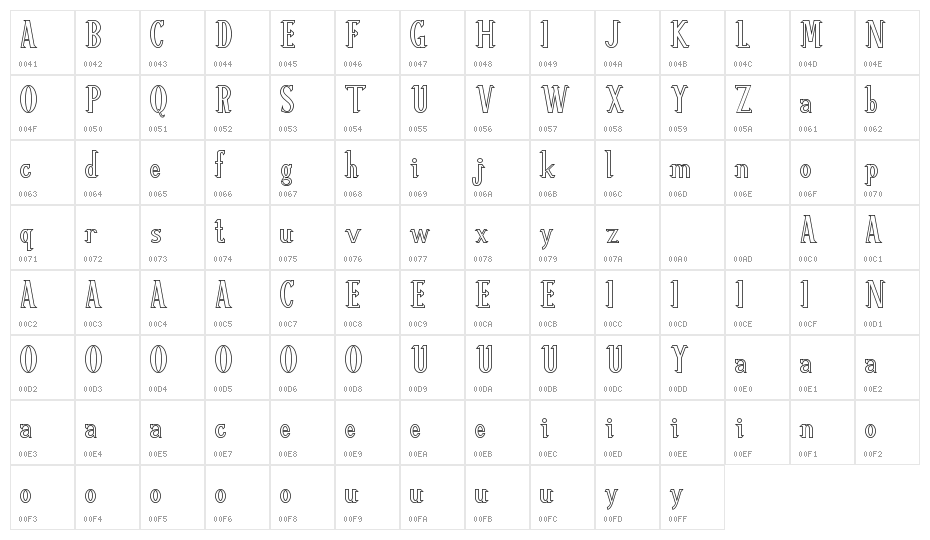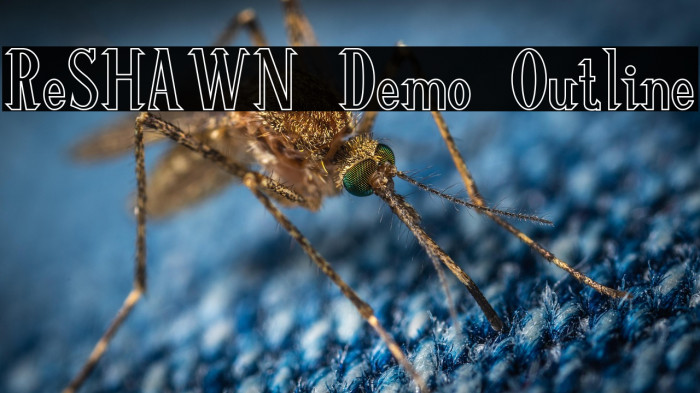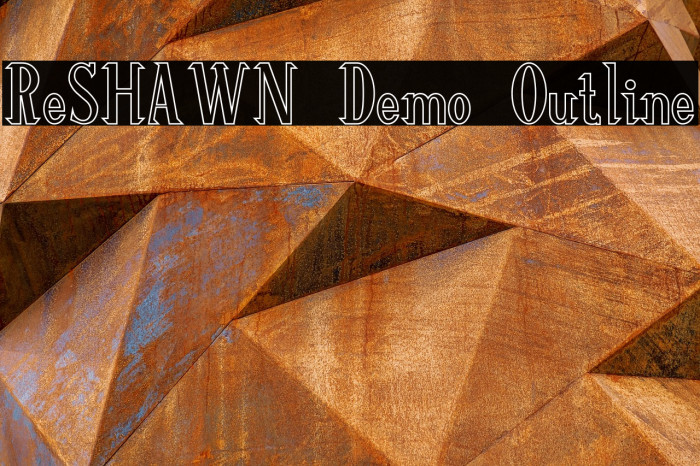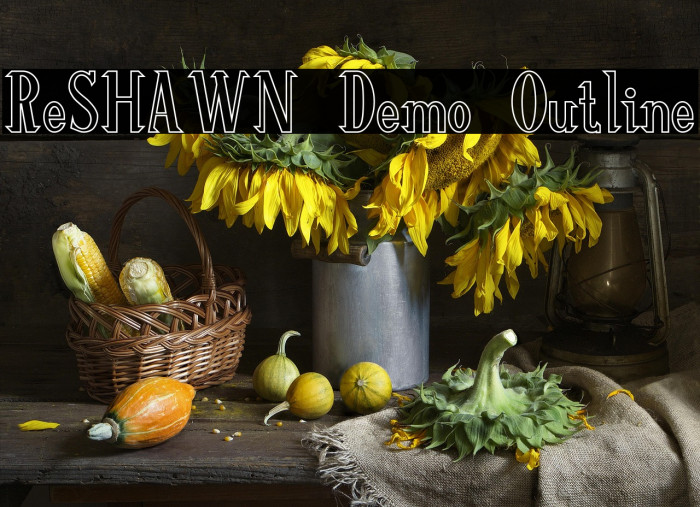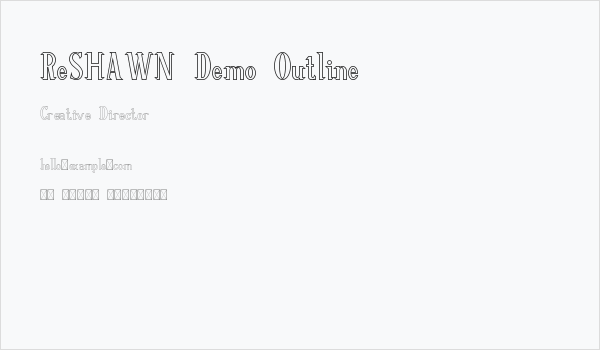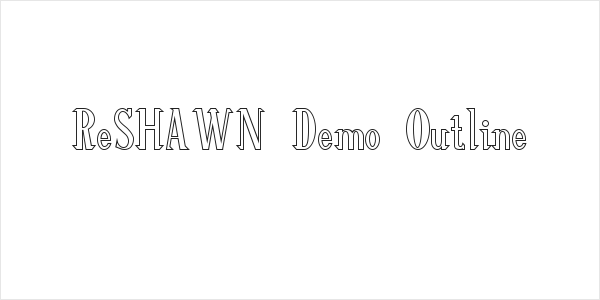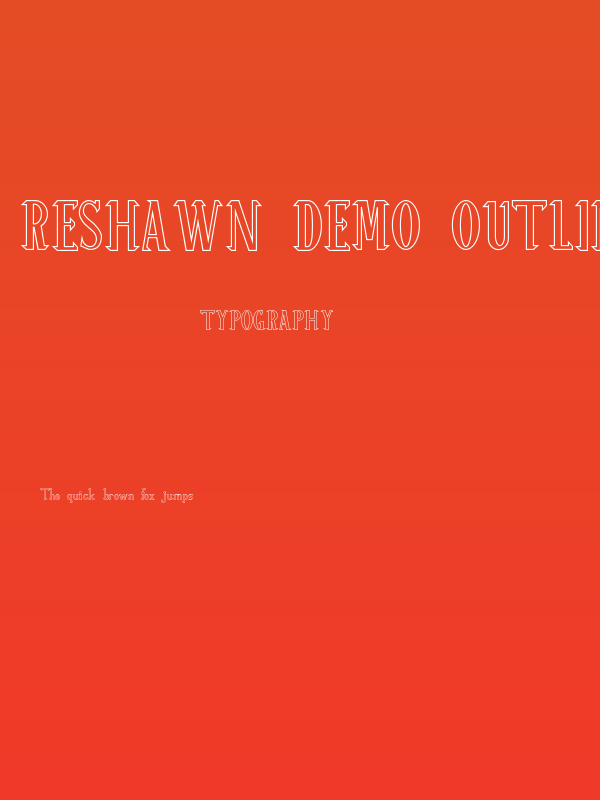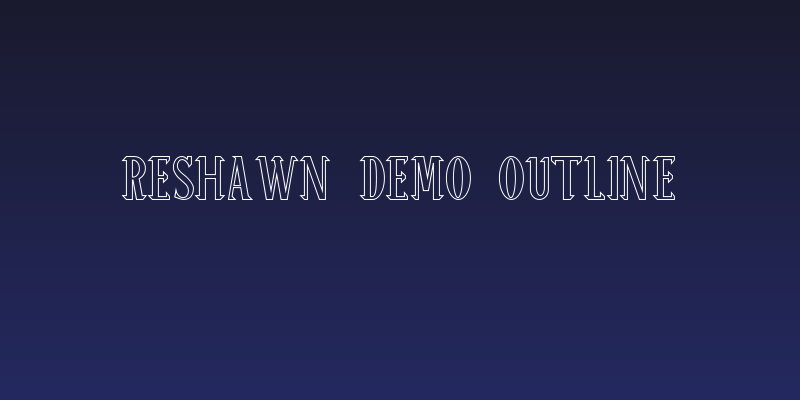
ReSHAWN Demo Outline Font
ReSHAWN Demo Outline Description
This font features a bold, outlined style that combines elements of both serif and decorative design. The uppercase letters are characterized by strong, angular serifs and a distinct outline that gives them a three-dimensional appearance. The lowercase letters maintain the same outlined style, offering a cohesive look across different text cases. The numerals and special characters are designed to match the boldness and style of the alphabet, ensuring consistency throughout. This font's unique outline effect makes it stand out, providing a sense of depth and dimension that is ideal for eye-catching designs. The overall aesthetic is both modern and classic, making it versatile for various applications.
| Proposed Projects | Ideal for headlines, posters, logos, and branding materials where a striking and memorable font is needed. |